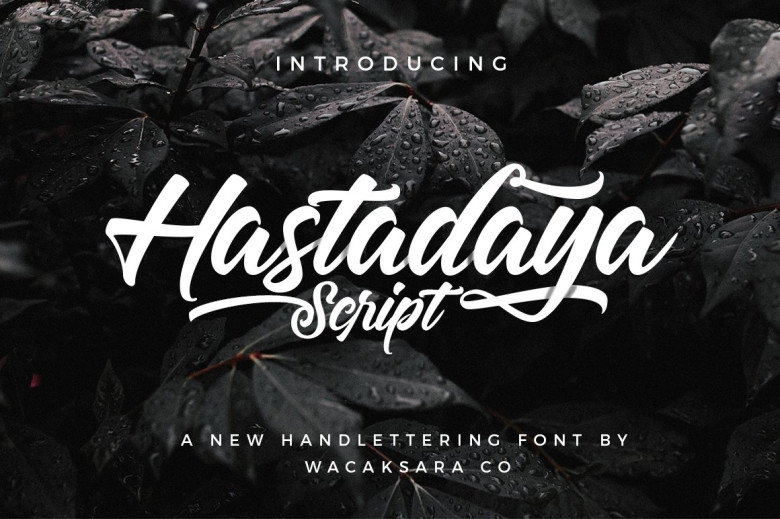
Hastadaya Font
Calligraphy and handlettering have grown increasingly popular. Many individuals desired to showcase their results on paper for posters, stickers or logos – Hastadaya will make creating custom typography easy!
Hastadaya offers multiple Opentype variations, from Uppercase, Lowercase and Numeric/Punctuation characters, Stylistic Styles Ligatures Discretionary Ligatures and Titling options that appear more natural than regular fonts, plus extra swashes add an aesthetic finish.
Hastadaya Handwritten Script Font